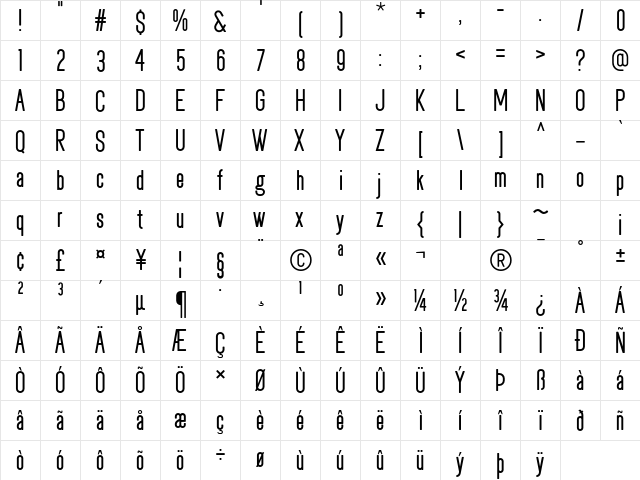
Shakerato-PERSONAL Light
| Foundry | Vilova |
| Designer | Fikri F Hasan |
Design Context for Shakerato-PERSONAL Typeface
Shakerato-PERSONAL takes a measured approach to typography — its balanced proportions and neutral character make it a reliable workhorse for both digital and print work. The delicate stroke weight brings airiness and refinement to layouts.